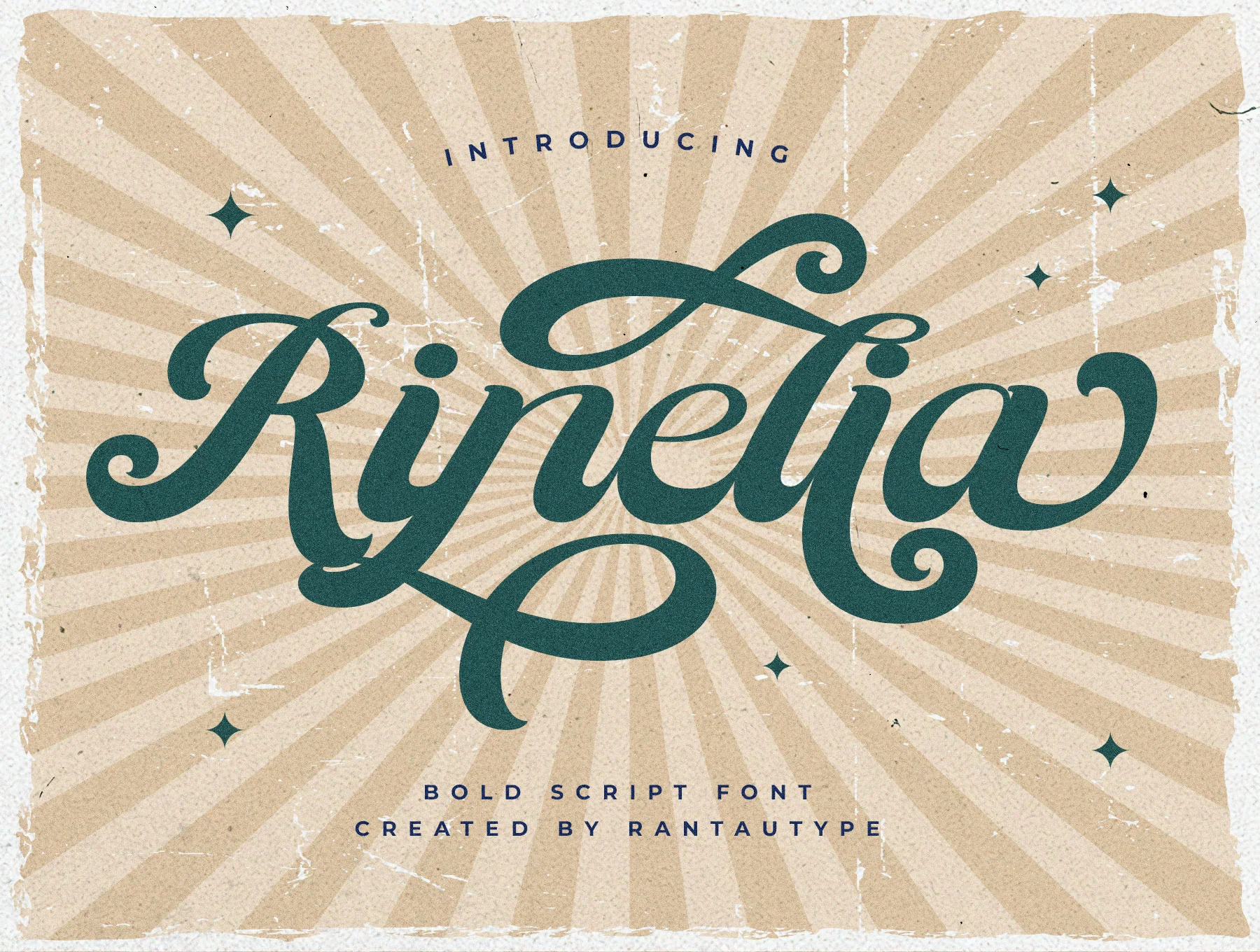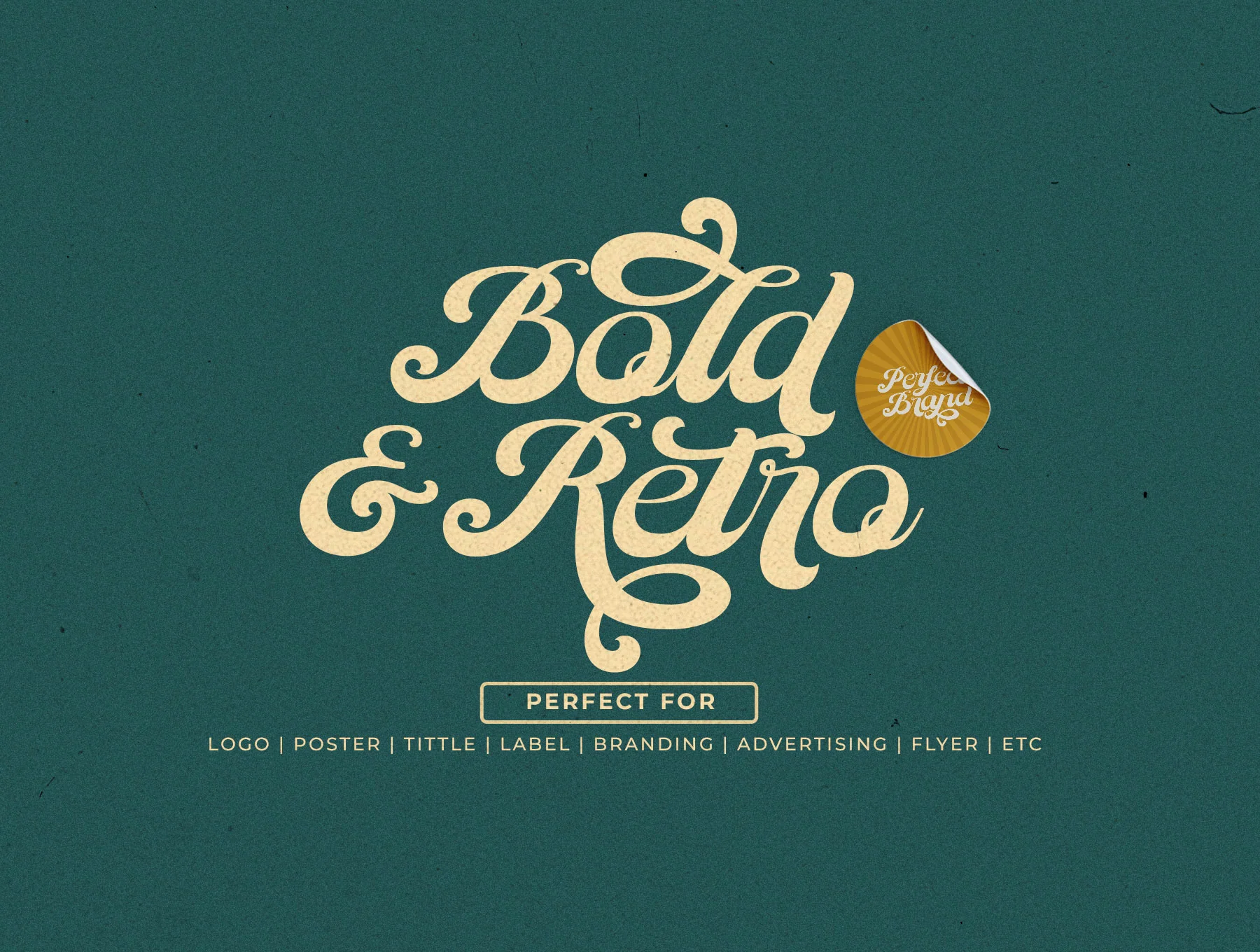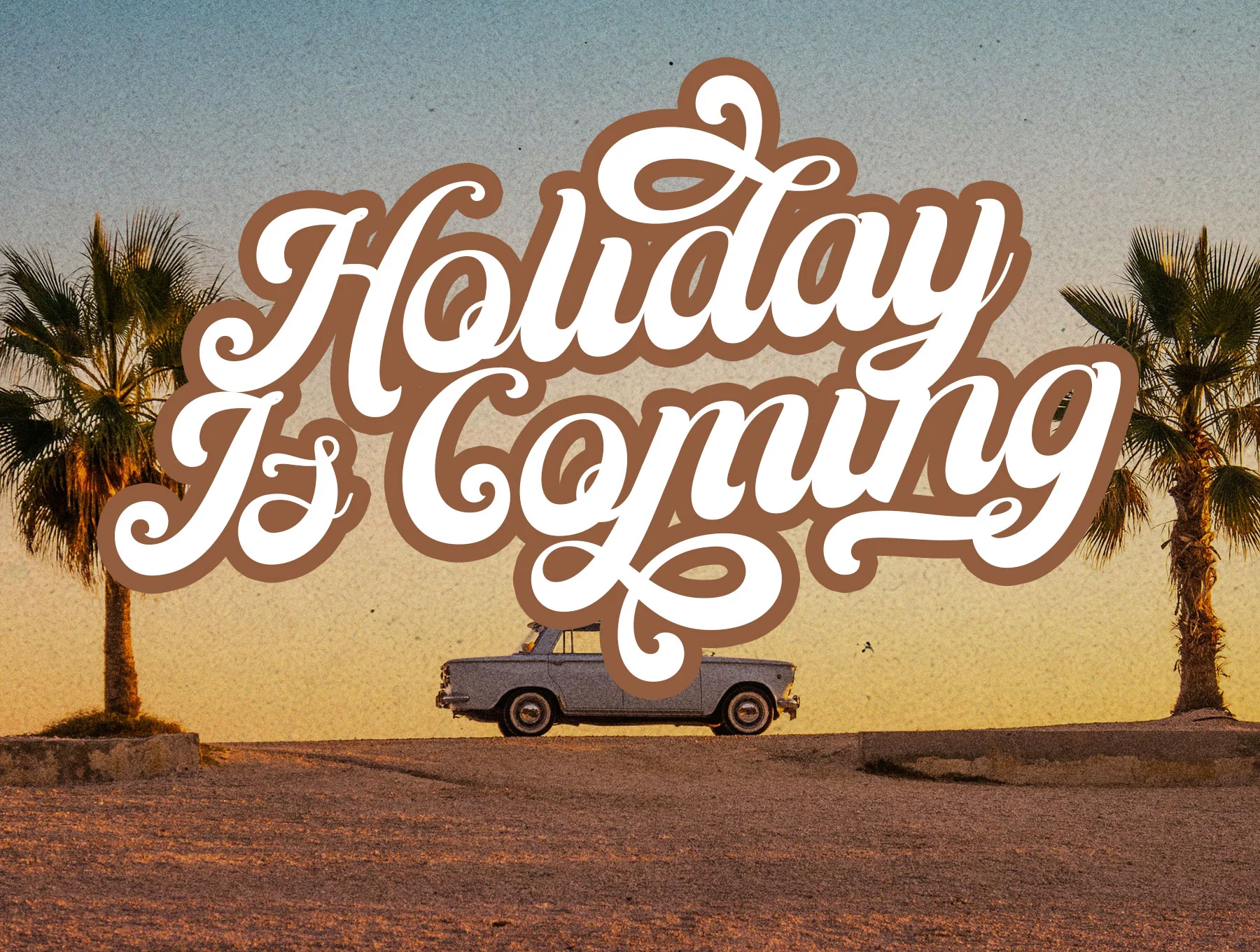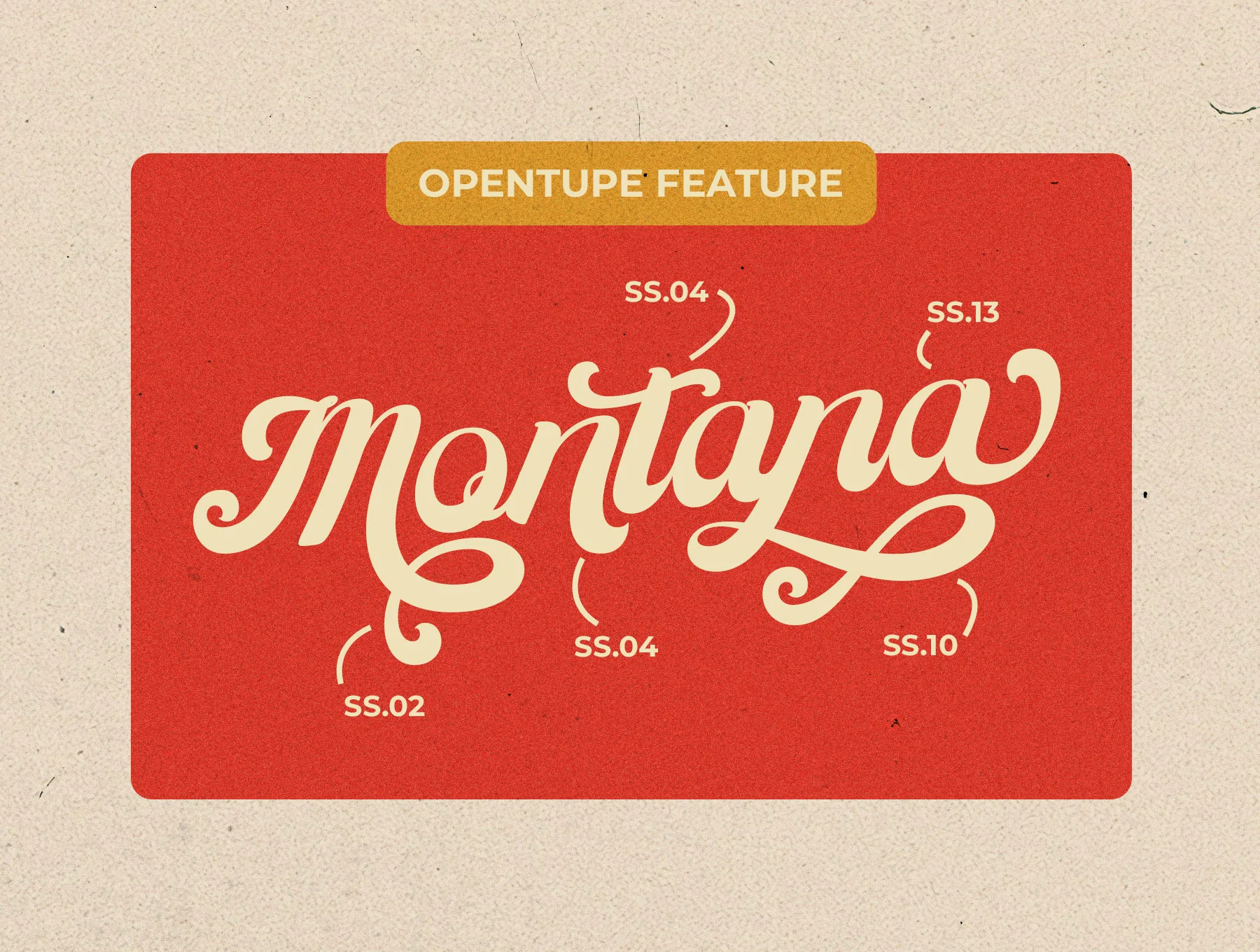
Ranelia Bold Retro Font
Striking Vintage Typeface
Basic letters from A-Z and a-z
Numerals plus functional symbols
Includes ligatures and alternate styles
Ranelia is a stylish retro typeface with a nostalgic 60s spirit, combining readability, elegance, and creative flair. Ideal for logos, titles, branding, magazines, wedding designs, quotes, album covers, business cards, and more. Includes A-Z, a-z, numbers, ligatures, alternates, multilingual support, OpenType features, plus OTF, TTF, and WOFF files.